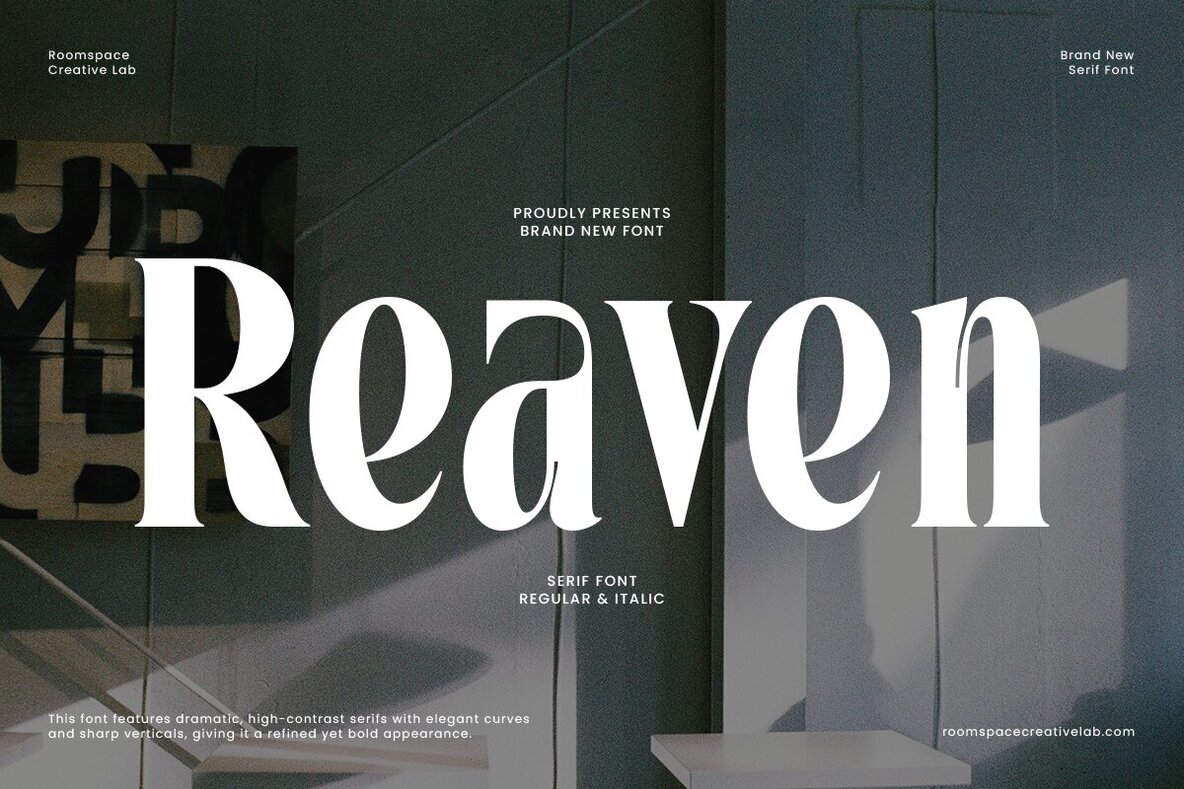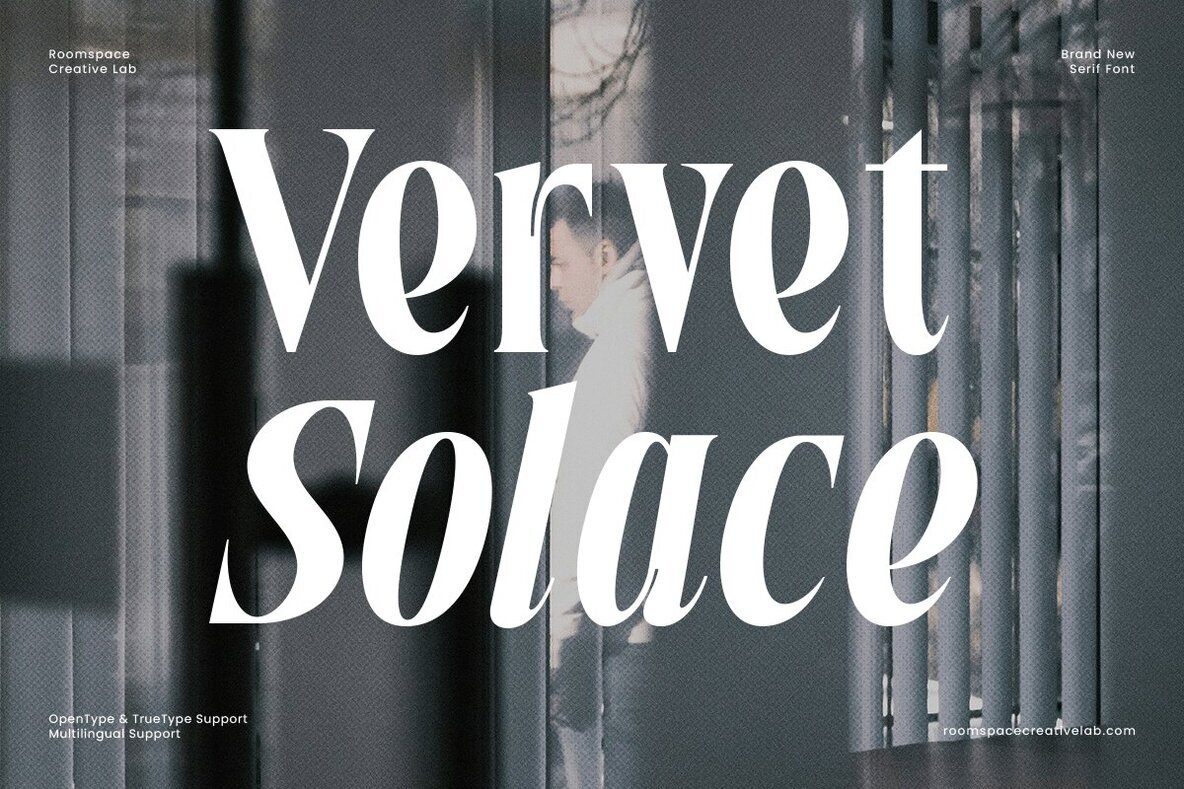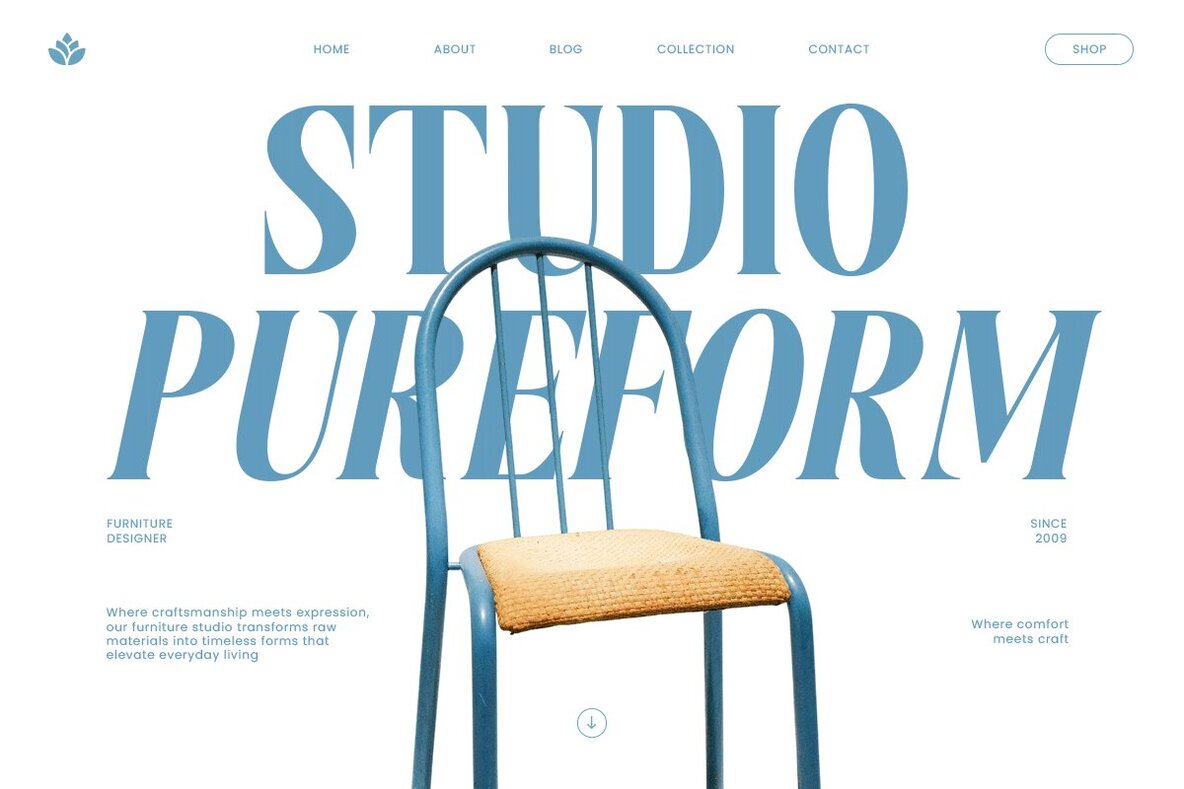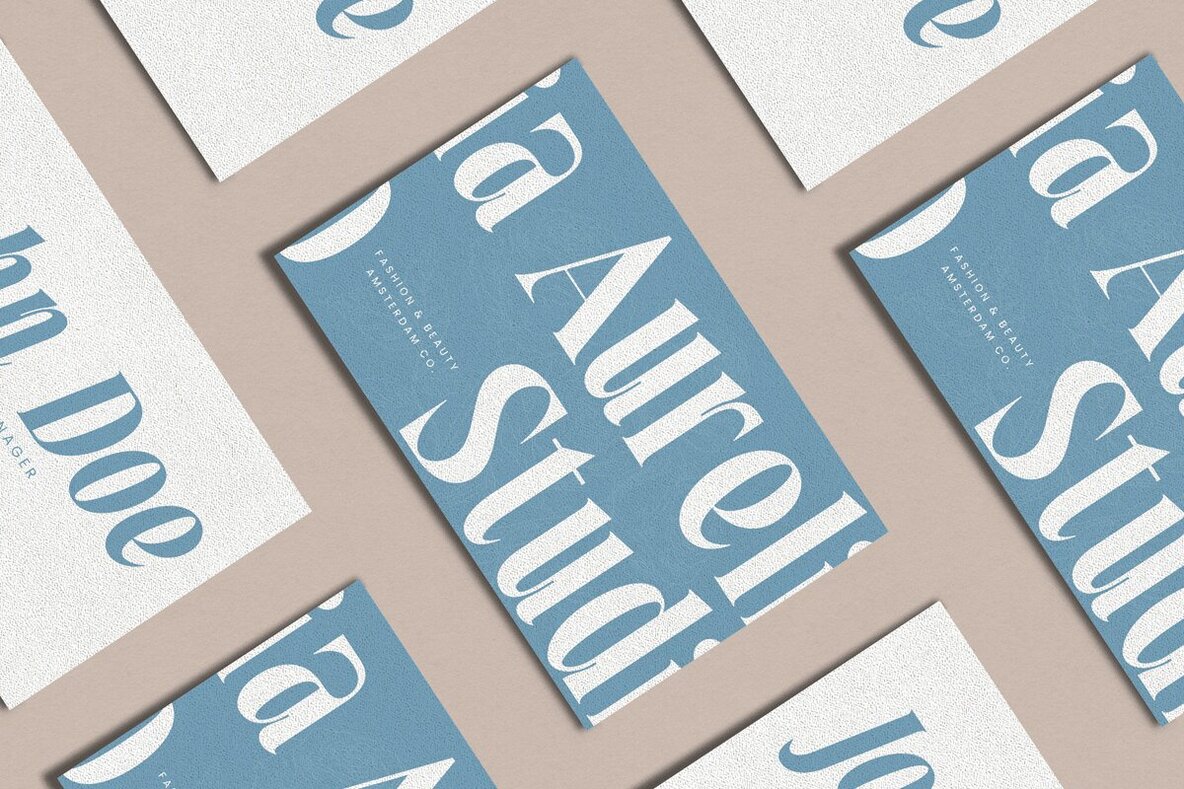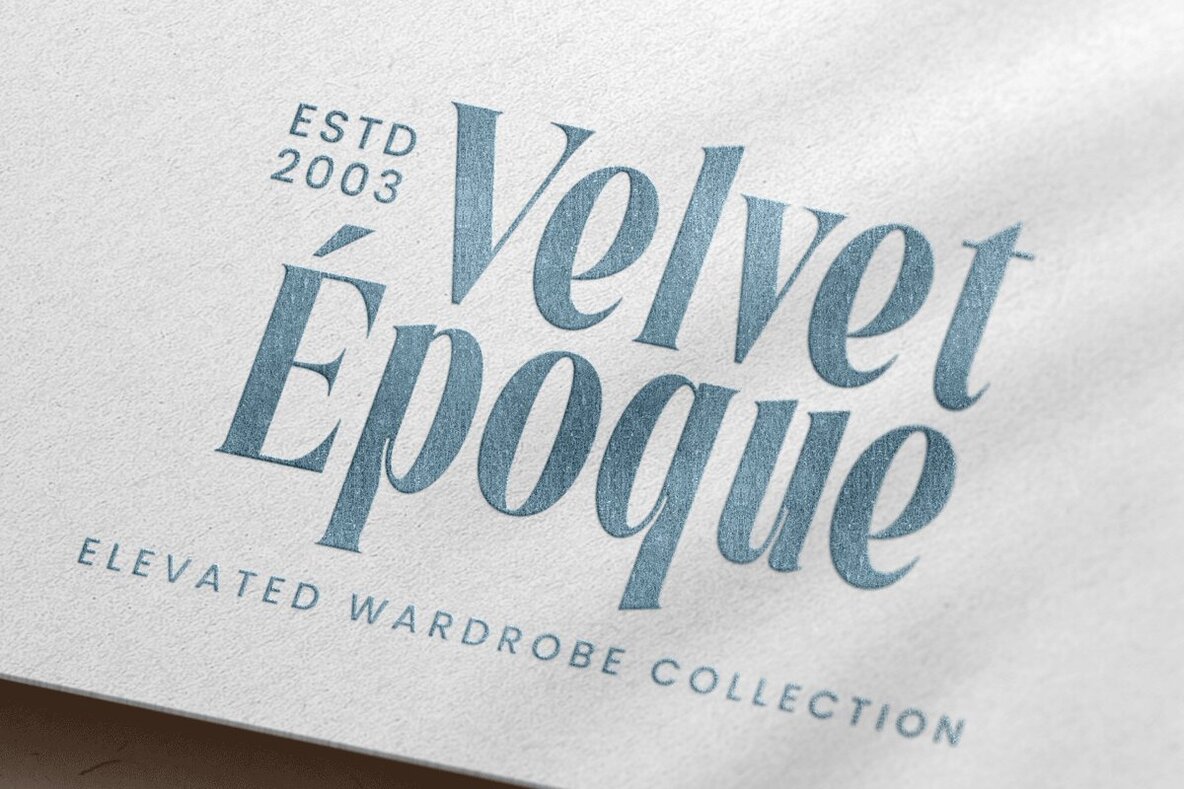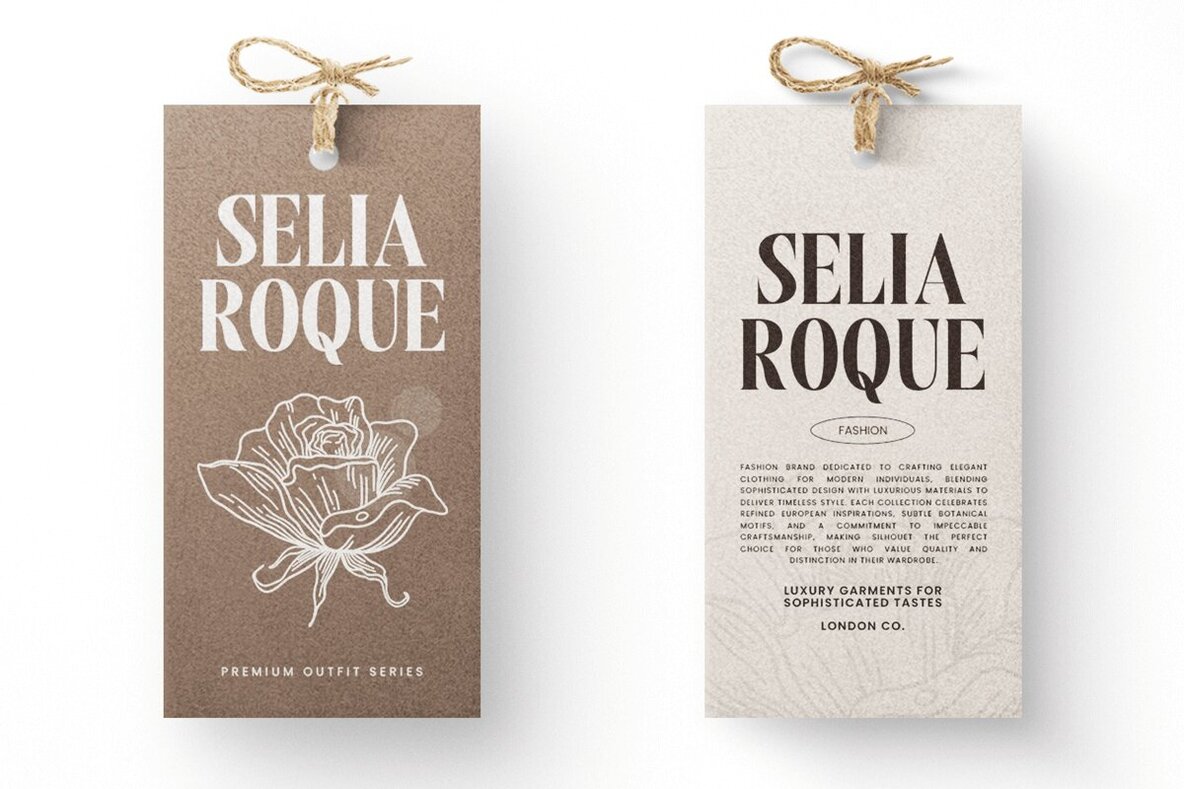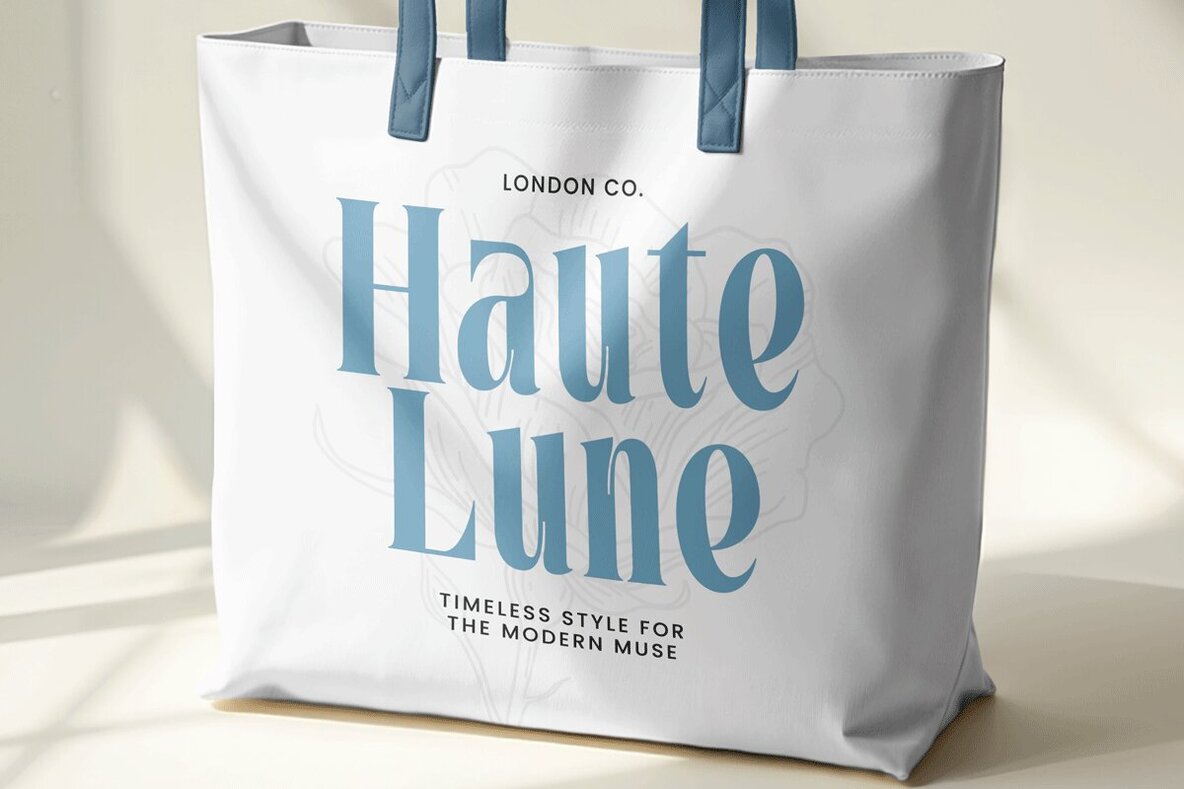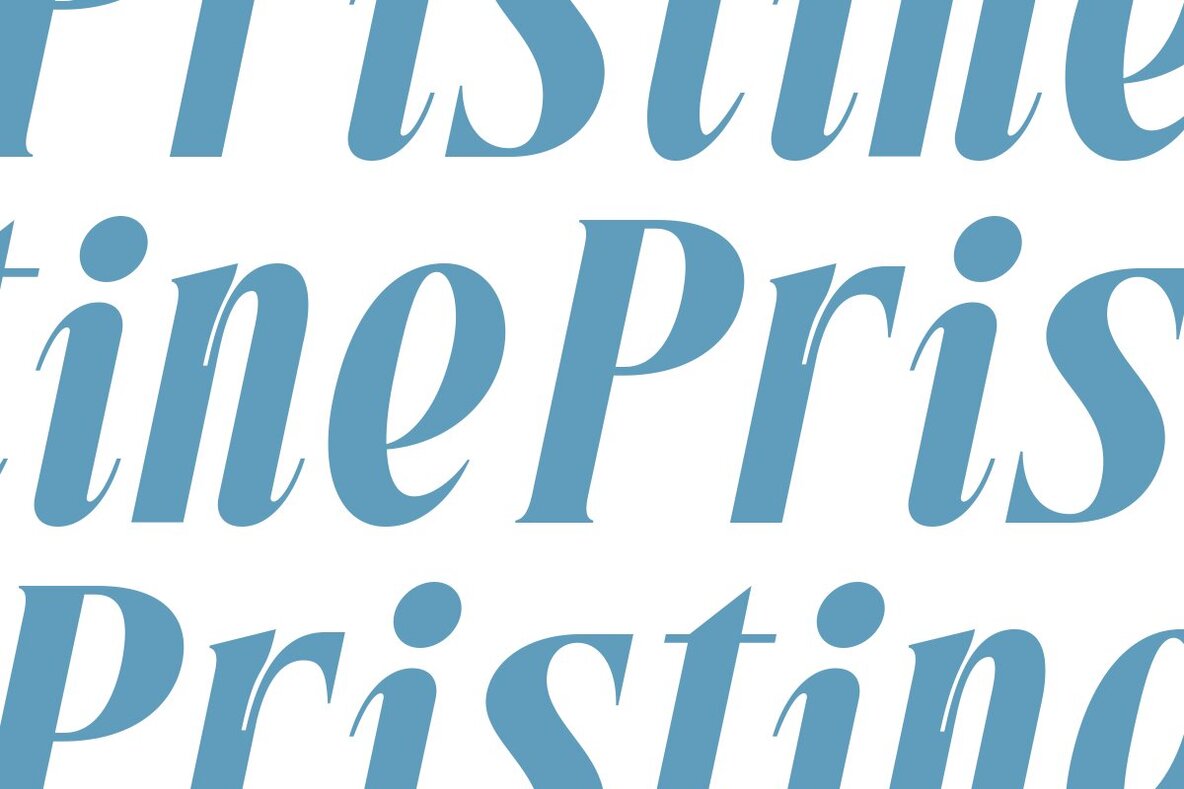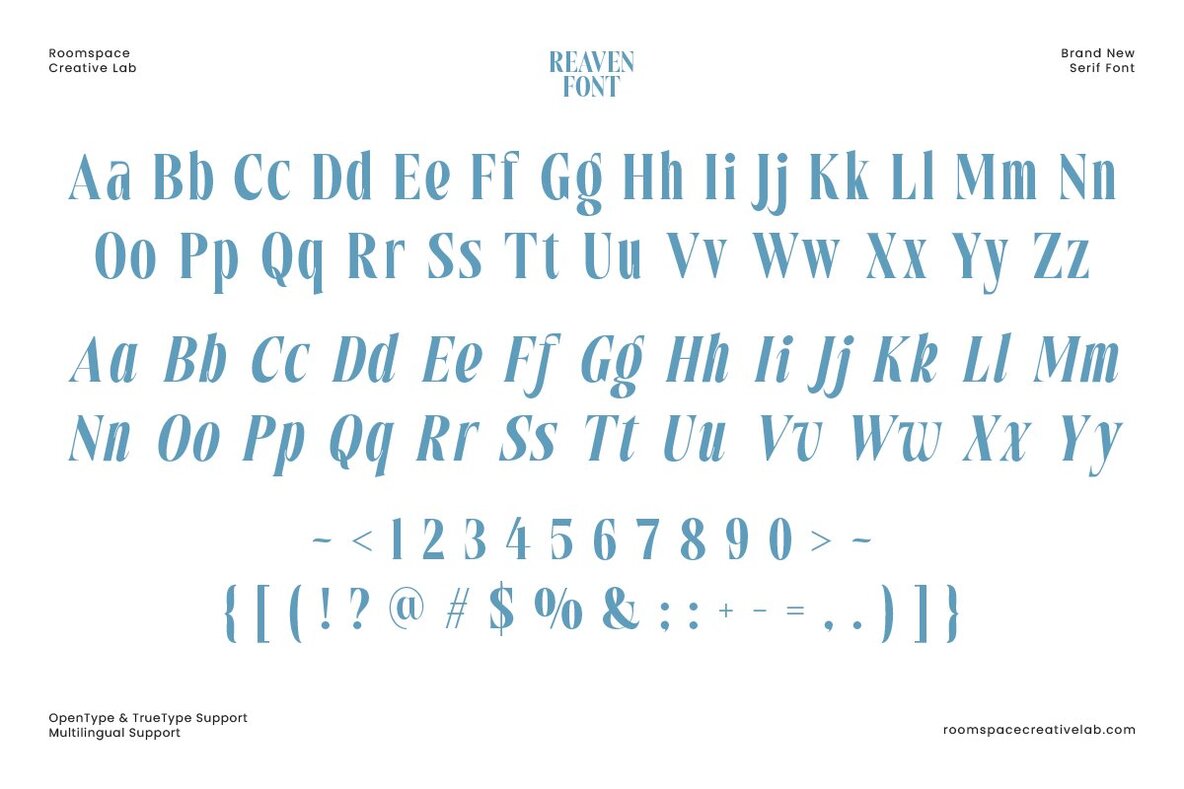
Reaven Font
Reaven is a modern serif typeface that brings together sophistication and strength. With striking contrasts between thick and thin strokes, it delivers a look that is bold yet refined, perfectly capturing the balance between editorial flair and minimalism. Reaven’s precise curves, sharp verticals, and consistent kerning provide strong visual impact for headlines while preserving clarity in longer text passages. This elegant typeface is an exceptional choice for luxury branding, editorial work, packaging, and digital identity systems. Its versatility shines in both print and digital environments, making it ideal for fashion magazines, contemporary logos, and high-end product labels. The availability of Regular and Italic styles offers flexibility for mixing tones and textures across your design projects, ensuring a unified and professional aesthetic.Reaven: Modern Serif with Timeless Appeal